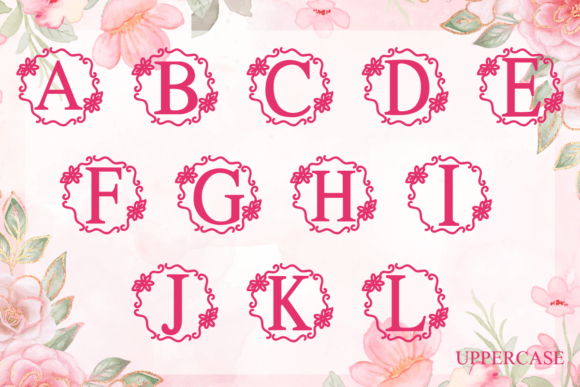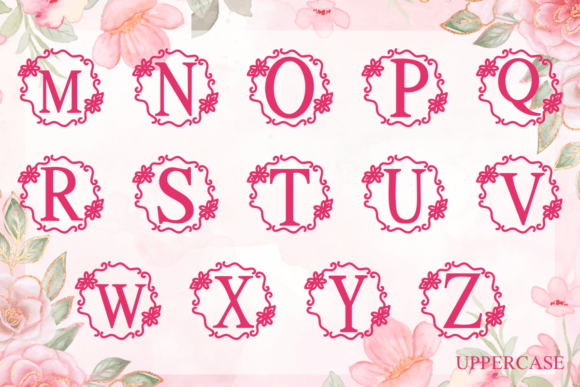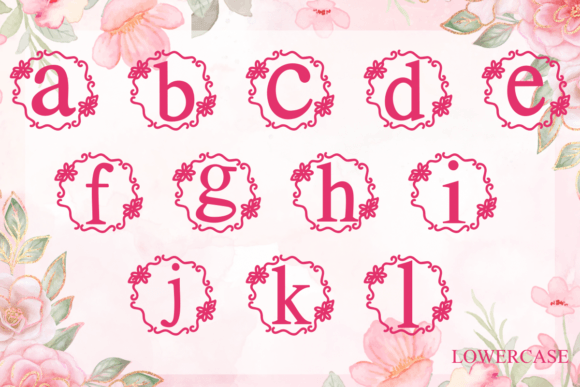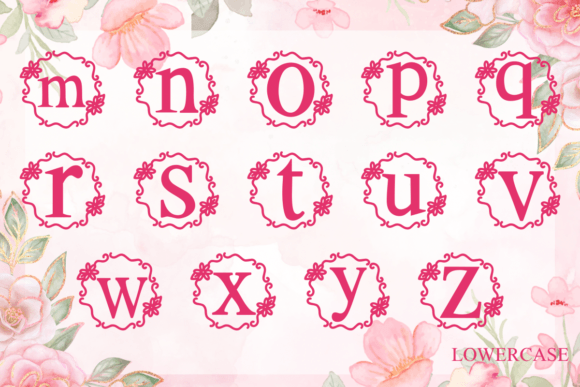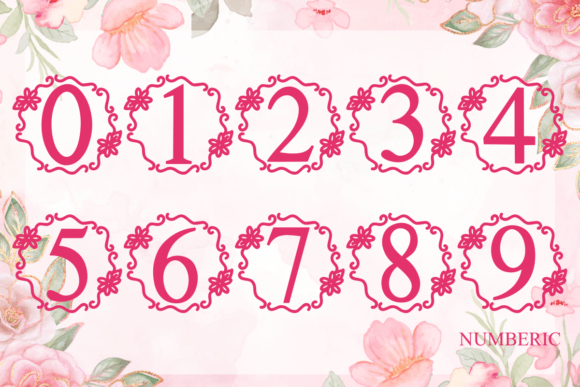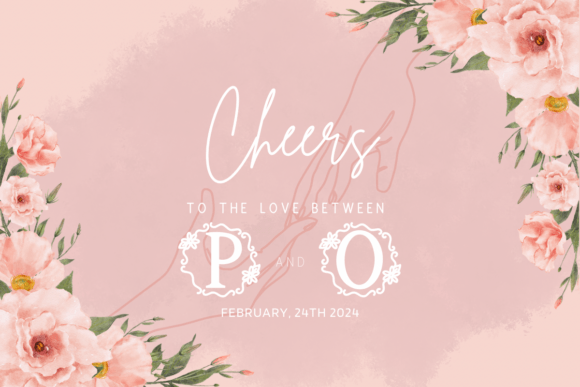
Adding a Touch of Elegance with the Flower Valentine Font
You’ve poured your heart into a design project, but something’s missing – that special something that makes it truly unforgettable. The words, the colors, the images – it all looks great, but you know it could be even more beautiful. This is where the Flower Valentine Font comes in – a stunning, organic decorative font that adds a touch of elegance to any creation.
This gorgeous font is more than just a pretty face; it’s a valuable asset for any designer’s library. With its lovely ornaments and delicate flair, the Flower Valentine Font has the potential to elevate any project, from romantic invitations to whimsical children’s books. Whether you’re a seasoned pro or just starting out, this font is sure to inspire your creativity and take your designs to the next level.
Key Features of Flower Valentine Font
- Unique Characteristics: The font features a beautiful, hand-drawn design with intricate floral elements, perfect for creating elegant and romantic designs.
Flower Valentine Font Review
Overall, I’m quite impressed with the Flower Valentine Font. Here are some of its standout features:
- ✨ Unique and feminine design that makes it perfect for wedding invitations, Valentine’s Day cards, or any other romantic theme.
- ✨ Elegant and delicate style that adds a touch of whimsy to any project.
- ✨ Highly customizable, with a wide range of font sizes, colors, and effects to choose from.
- ✨ Supports multiple languages, making it a great choice for multilingual projects.
- ⚠️ Limited font weights and styles, which might not be suitable for projects that require a lot of font variation.
- ⚠️ Some characters may not display correctly in certain operating systems or browsers, which can lead to formatting issues.
Overall, I’d say that the Flower Valentine Font is a great choice for designers who need a unique and feminine font for their romantic-themed projects. While it has some limitations, its customization options and elegant design make it a valuable addition to any font library.
The Flower Valentine Font is ideal for creating romantic and whimsical designs. Some common use cases include:
– Valentine’s Day cards and invitations
– Gift tags and labels
– Tips for getting the most out of this font include:
– Pairing it with bold and playful fonts for contrast
– Using it in combination with floral graphics and patterns
– Experimenting with different font sizes and colors to create visual interest
Alternatives to Flower Valentine Font for Designers
Caslon
Caslon is a serif font with a classic and elegant feel. It’s ideal for use in wedding invitations, formal event materials, and any design that requires a touch of sophistication. Caslon is a more traditional choice compared to Flower Valentine Font, with a more formal and less whimsical feel.
Pacifico is a beautiful script font with a romantic and elegant feel. It’s perfect for use in wedding invitations, love letters, and any design that requires a touch of romance. Pacifico is similar to Flower Valentine Font in its romantic and elegant feel, but it has a more modern and sleek appearance.
Great Vibes is a beautiful script font with a playful and elegant feel. It’s ideal for use in wedding invitations, love letters, and any design that requires a touch of whimsy. Great Vibes is similar to Flower Valentine Font in its playful and elegant feel, but it has a more casual and relaxed appearance.
Q: Can I customize the Flower Valentine Font to suit my design needs?
The Flower Valentine Font is a highly customizable font, with support for advanced OpenType features such as ligatures, swashes, and contextual alternates. You can also use font editing software to modify the font’s design and create custom variations. However, please ensure you have the necessary technical expertise and adhere to the font’s licensing terms.